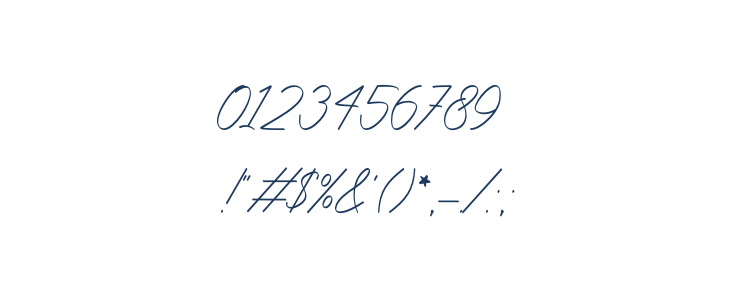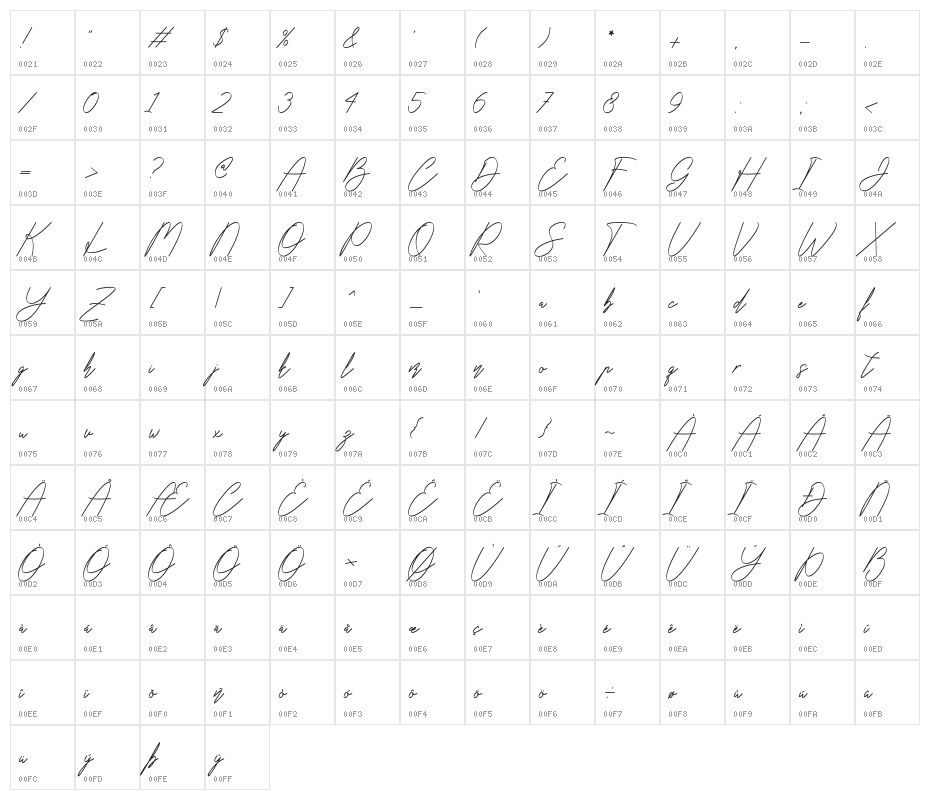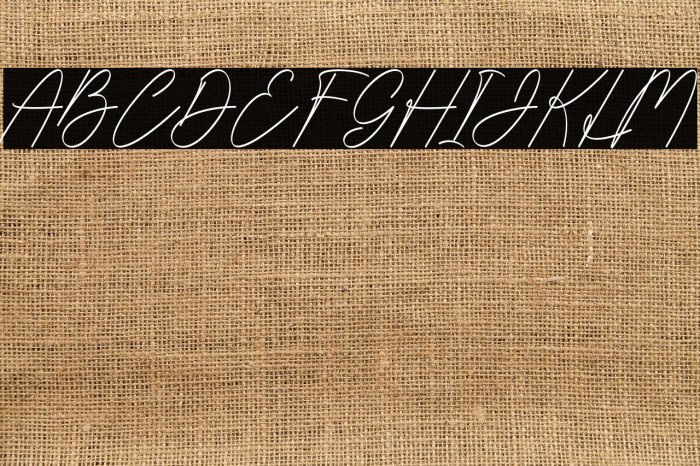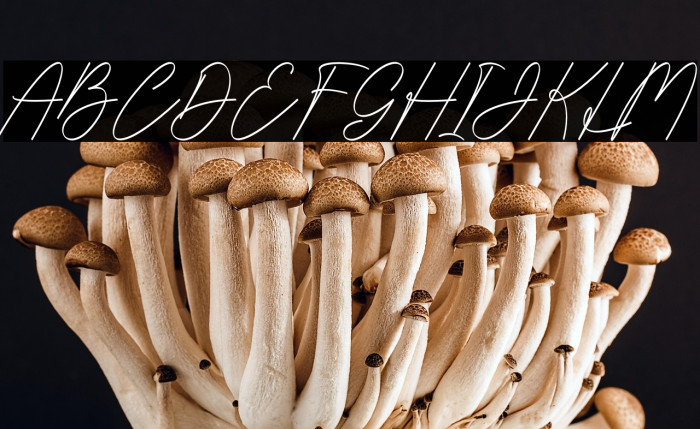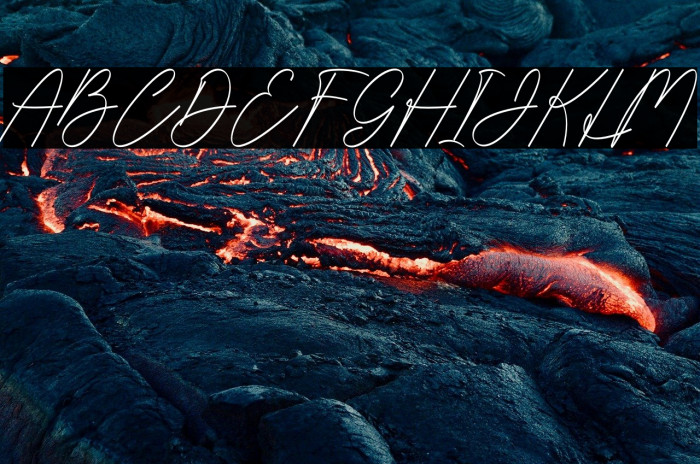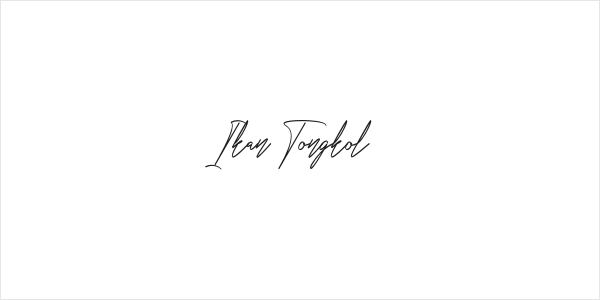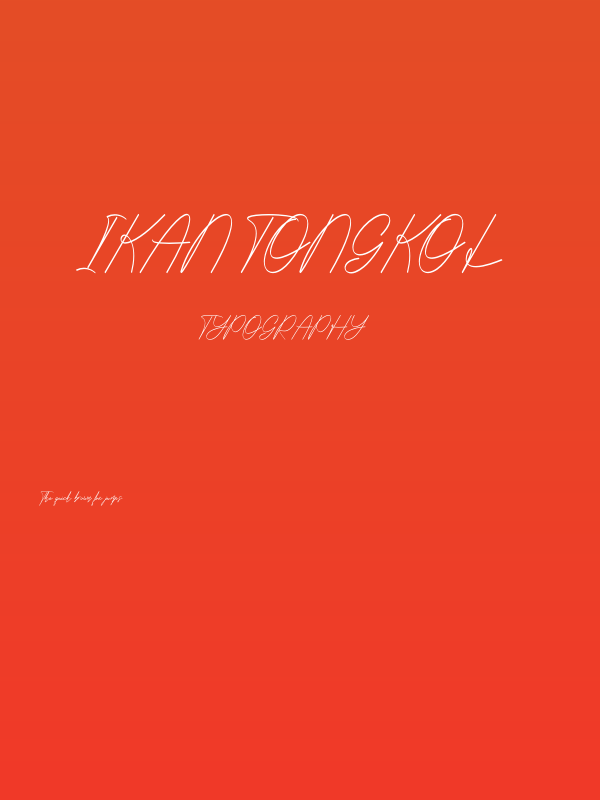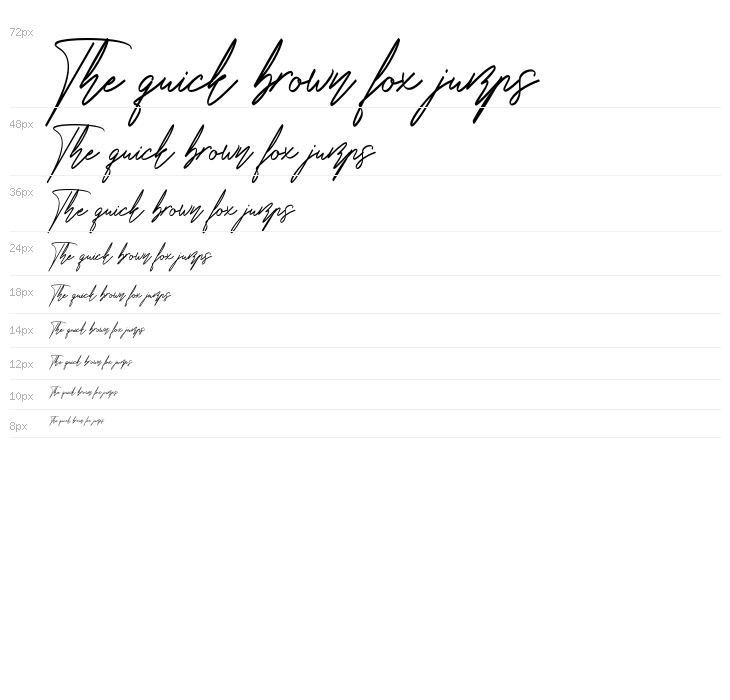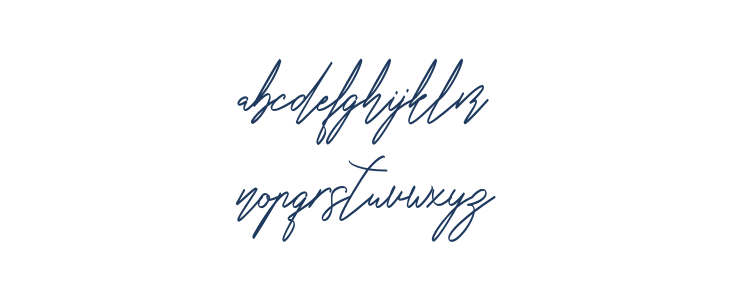
Ikan Tongkol Font
Ikan Tongkol Description
This font features an elegant and flowing script style that mimics natural handwriting. The uppercase letters are tall and slender, with a slight slant that adds a dynamic feel. The lowercase letters are more compact, maintaining a consistent flow with smooth, connected strokes. The numerals are clear and legible, matching the overall cursive aesthetic. Special characters are designed with the same fluidity, ensuring a cohesive look across all text. This font's delicate lines and graceful curves make it suitable for projects that require a personal touch.